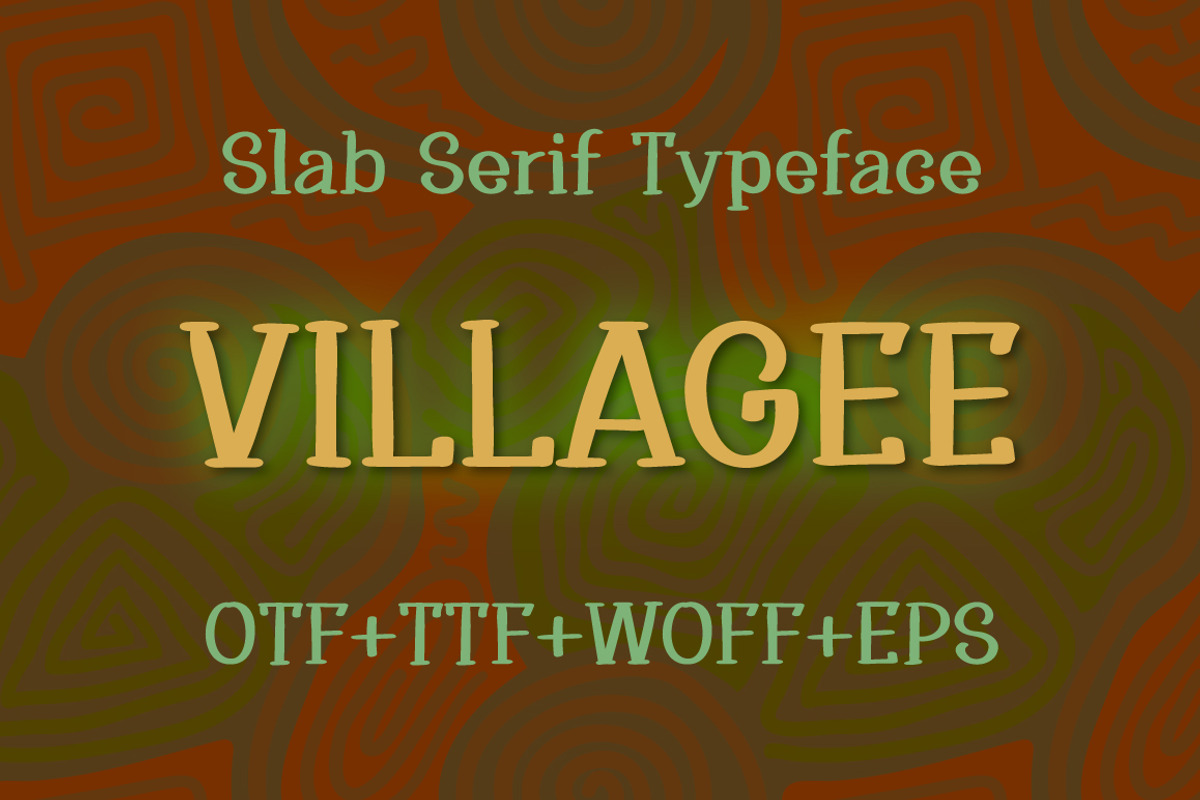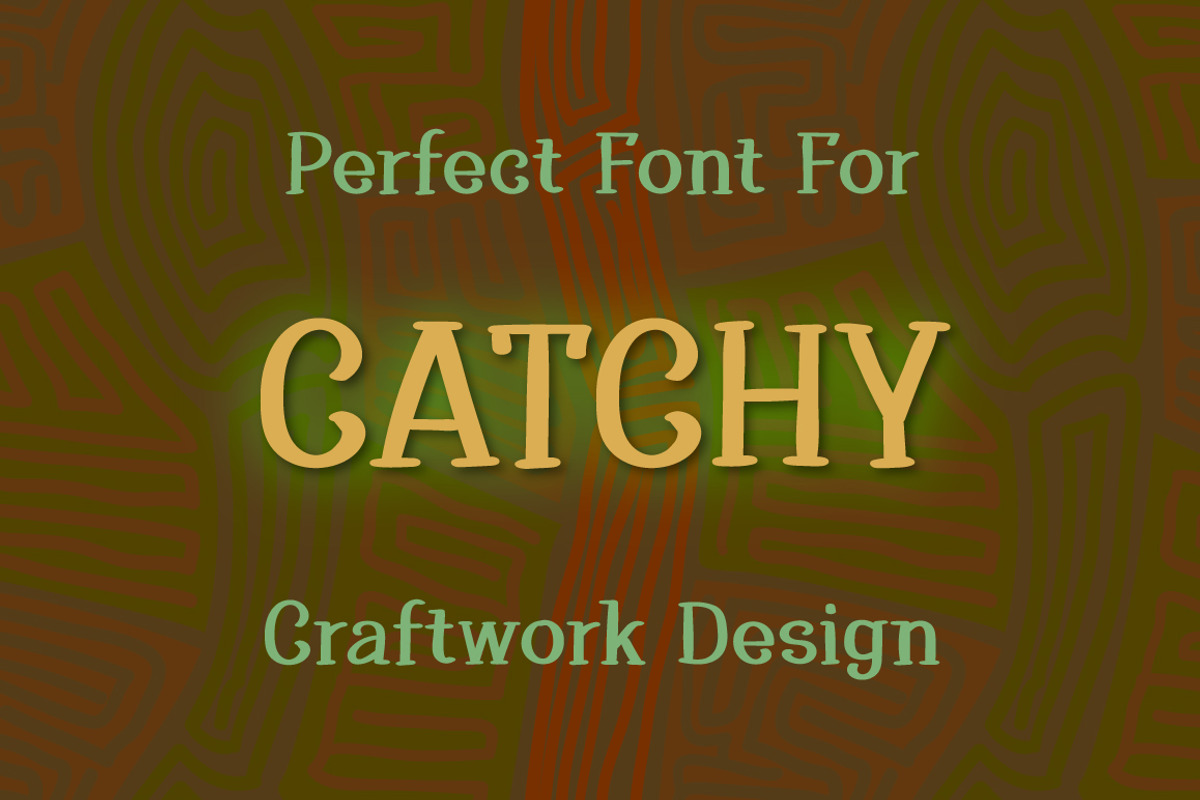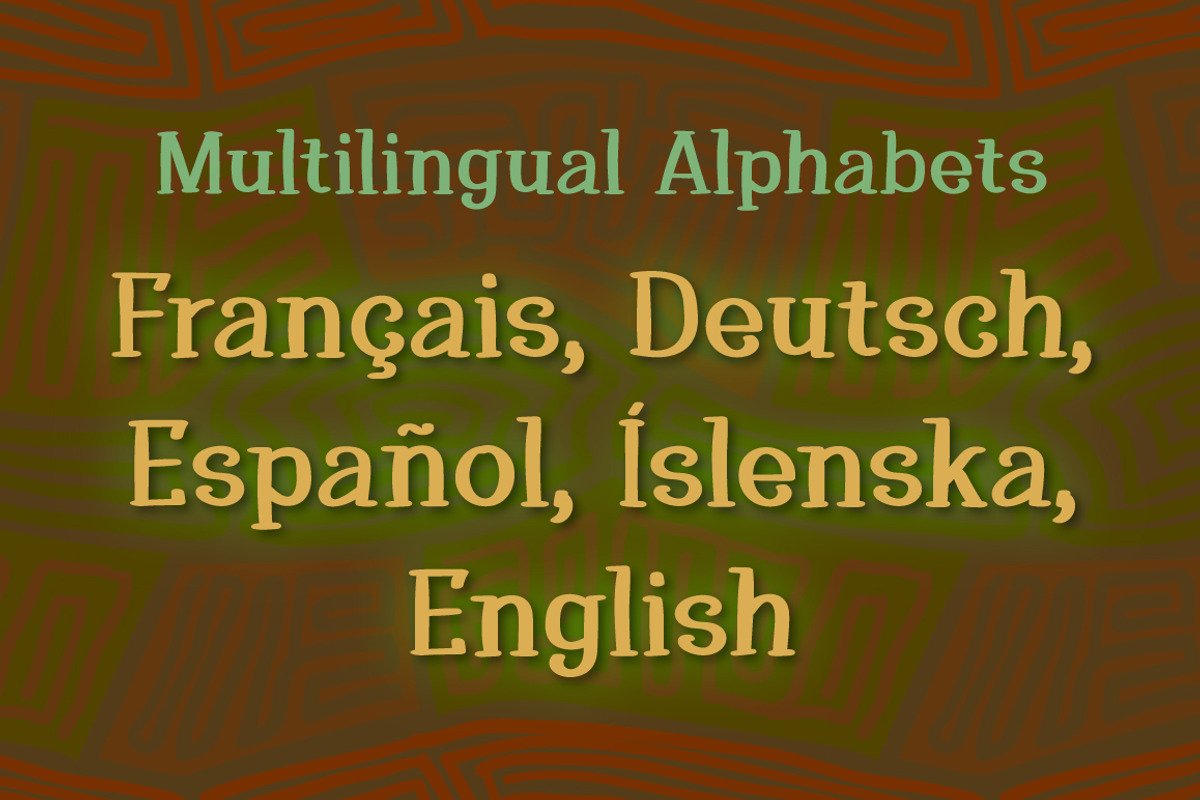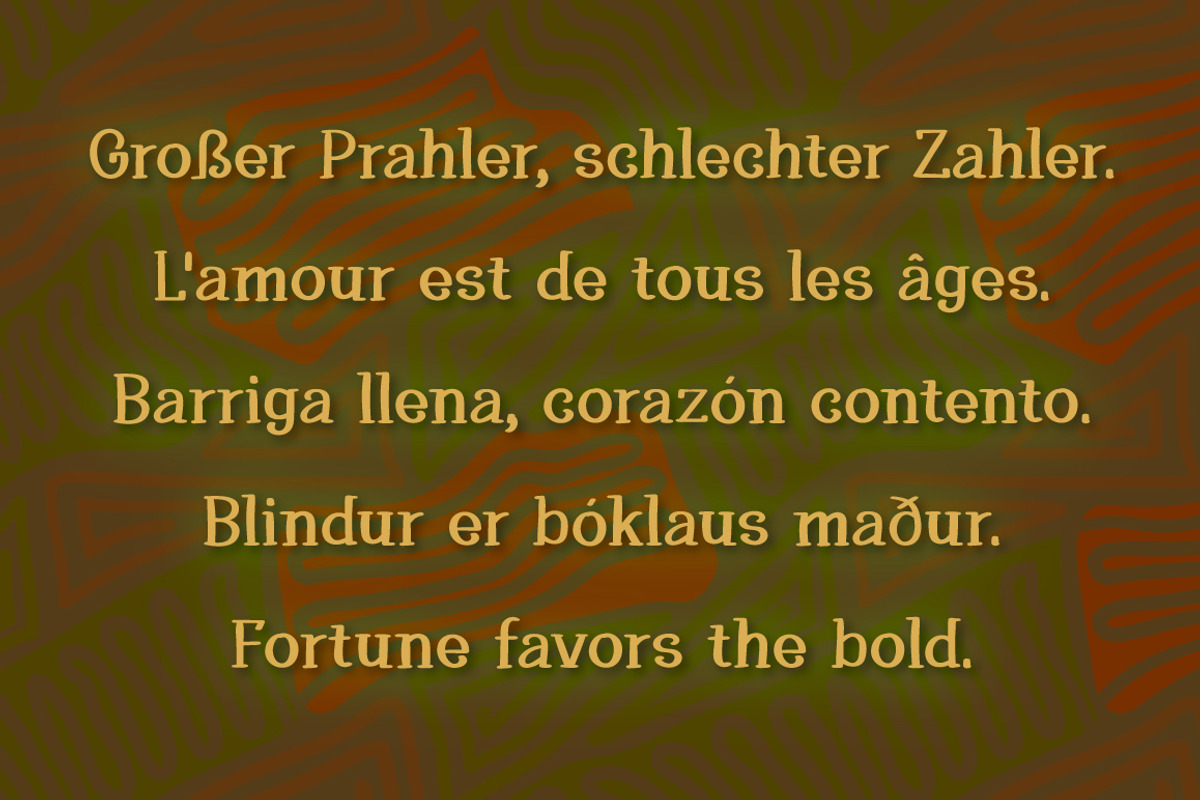
Villagee slab serif font
If you are looking for a handwritten slab serif font for labels, covers, posters and other design projects, then this type is probably for you. Villagee is a multilingual handwritten typeface with uppercase and lowercase letters, numbers and punctuation. It can be used to write inscriptions on the labels or packaging of catchy craftwork design. In this case you will receive otf, ttf, woff and vector eps fonts.
Major alphabets: French, German, Icelandic, Spanish. Symbol sets: Punctuation, Mathematics, Currency.